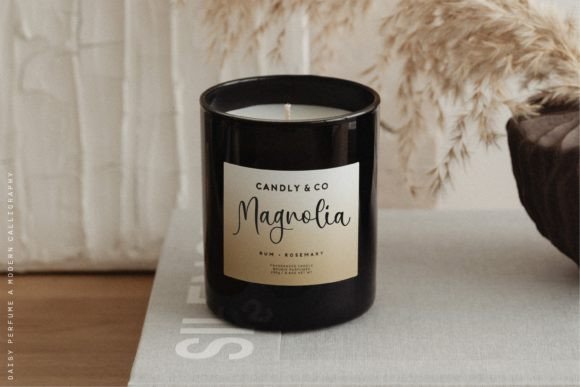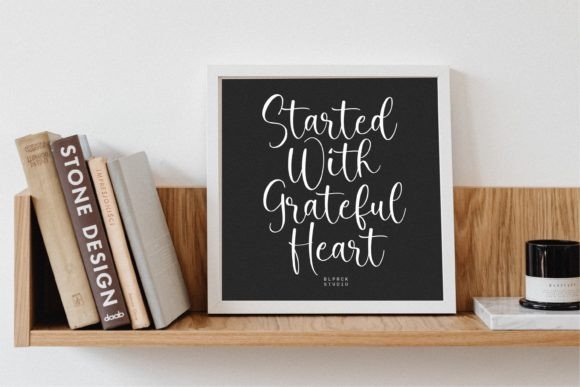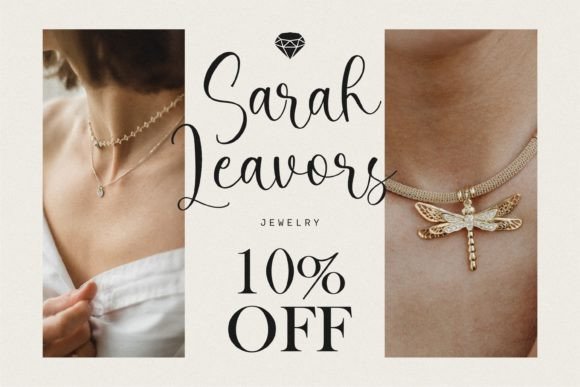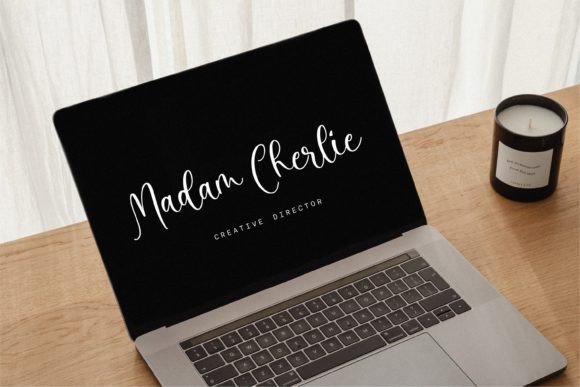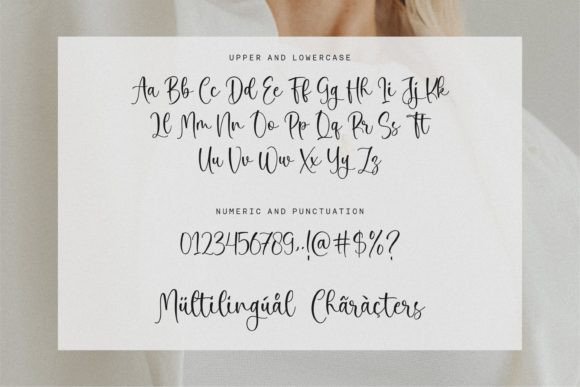
Introduction to Daisy Perfume Font
Daisy Perfume is a Modern Calligraphy Font that’s perfect for adding a personal touch to your design projects.
With its natural, organic feel and unique character Crafted with care and attention to detail, this font is incredibly versatile and can be used for a range of design projects, including logos, branding, invitations, and more.
Key Features of Daisy Perfume Font